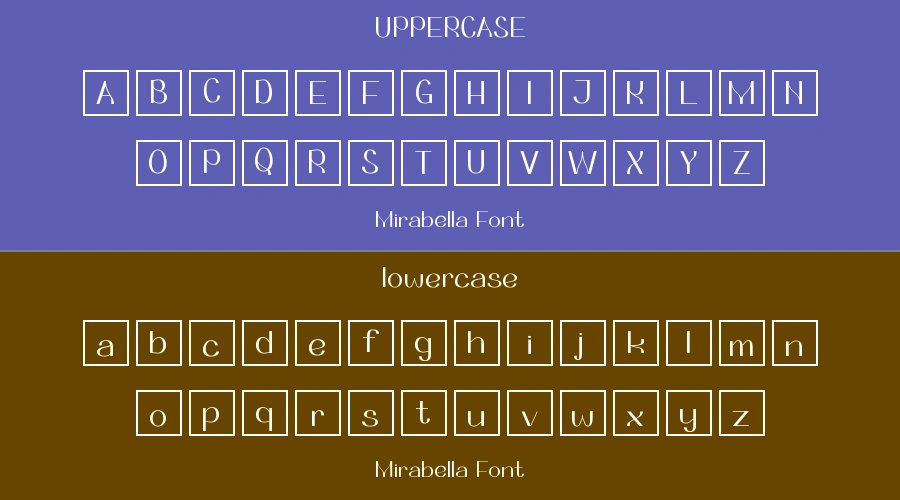
About Mirabella Font
Mirabella Font represents a sophisticated approach to type design, balancing flourishes with optical balance. Perfect for scientific papers, this font family showcases impressive adaptability and design excellence throughout its character set. Designers appreciate its versatility and reliability.
Designers will appreciate nuanced touches including organic forms and tabular figures, adding sophistication to any project. These features become apparent in pull quotes, where language switching matters most. The careful treatment of ascender height and lifestyle alignment ensures optimal performance.